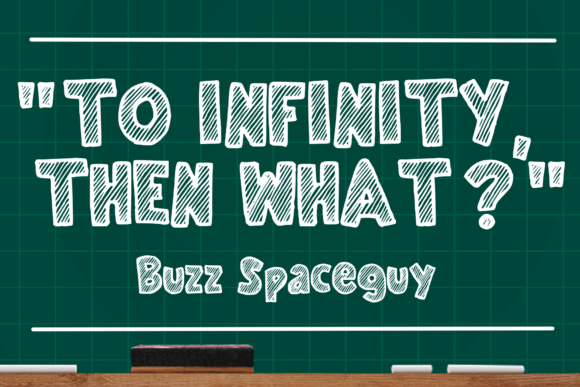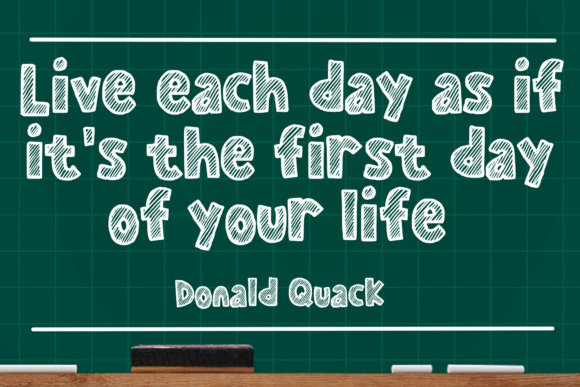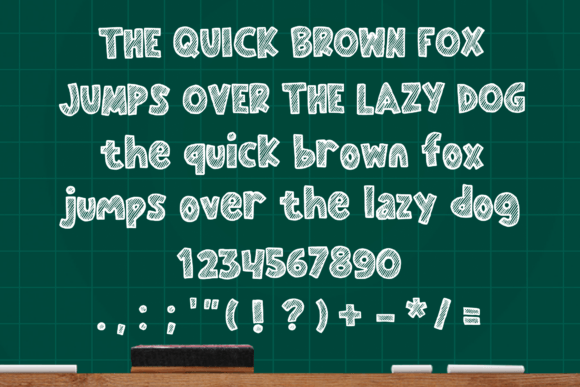
Introducing Chalk Sketch Font: Add a Touch of Whimsy to Your Designs
Are you tired of using the same old fonts in your designs? Do you want to add a personal and realistic touch to your chalkboard quotes, teaching materials, and other creative projects? Look no further than Chalk Sketch Font, a fun and playful handwritten font that is sure to capture the attention of your audience.
What is Chalk Sketch Font?
Chalk Sketch Font is a unique and authentic font that mimics the look of chalk on a chalkboard. Its textured and handwritten style gives it a warm and inviting feel, making it perfect for a wide range of design applications. Whether you’re a designer, crafter, or educator, this font is sure to become a favorite in your toolkit.
Key Features of Chalk Sketch Font
- Handwritten and chalk textured: Chalk Sketch Font has a distinctive handwritten style with a chalk texture that gives it a realistic and authentic look.
- Perfect for chalkboard quotes and teaching materials: This font is ideal for creating eye-catching chalkboard quotes, teaching materials, and other educational resources.
- Versatile and flexible: Chalk Sketch Font can be used for a wide range of design applications, from t-shirts and book designs to restaurant menus and greeting cards.
- Casual and playful: This font has a fun and playful vibe that’s perfect for adding a touch of whimsy to your designs.
Uses for Chalk Sketch Font
Chalk Sketch Font is incredibly versatile, and its uses are endless. Here are just a few ideas to get you started:
- T-shirts and apparel: Add a fun and playful touch to your t-shirt designs with Chalk Sketch Font.
- Book designs and publishing: Use this font to create eye-catching book covers, illustrations, and interior designs.
- Restaurant menus and signage: Add a touch of whimsy to your restaurant menus and signage with Chalk Sketch Font.
- Blog writing and social media: Use this font to create engaging and attention-grabbing blog posts and social media graphics.
- Greeting cards and stationery: Add a personal touch to your greeting cards and stationery with Chalk Sketch Font.
- Stickers and decals: Use this font to create fun and playful stickers and decals for any occasion.
Why Choose Chalk Sketch Font?
So why choose Chalk Sketch Font over other fonts? Here are just a few reasons:
- Unique and authentic style: Chalk Sketch Font has a distinctive and authentic style that’s sure to stand out in any design.
- Easy to read and use: This font is clear and easy to read, making it perfect for use in a wide range of design applications.
- High-quality and versatile: Chalk Sketch Font is a high-quality font that’s versatile and flexible, making it perfect for use in any design project.